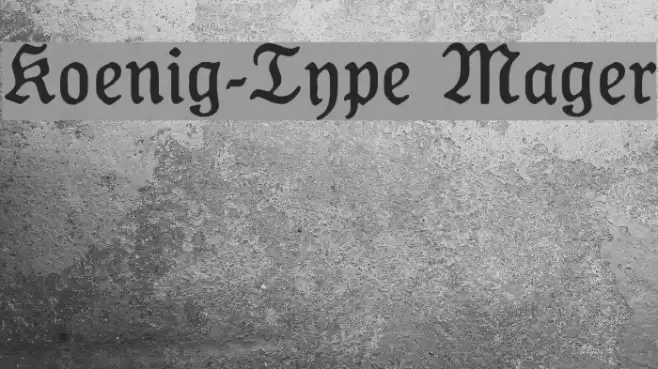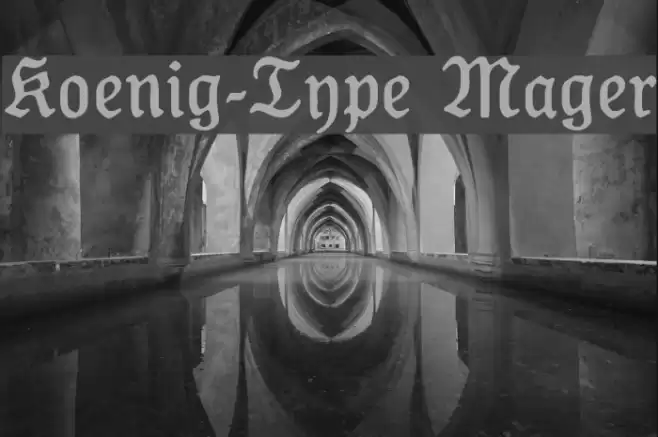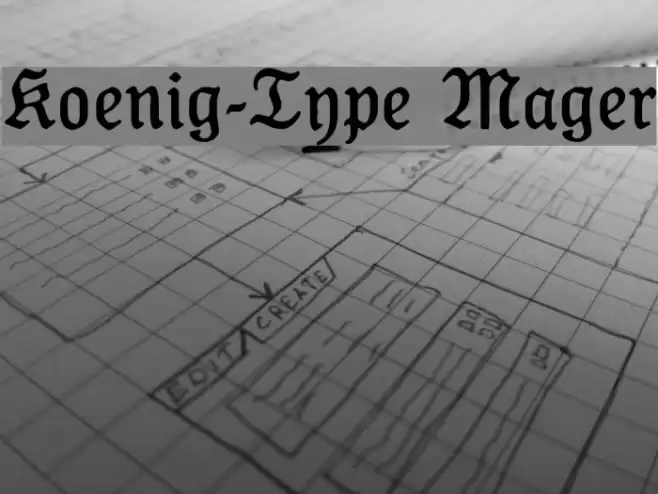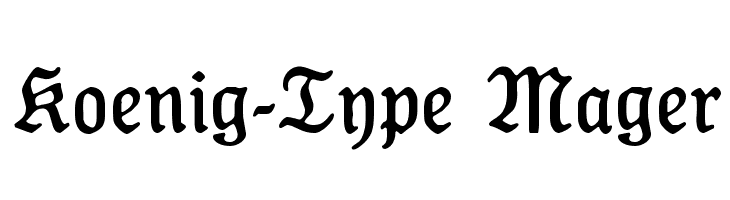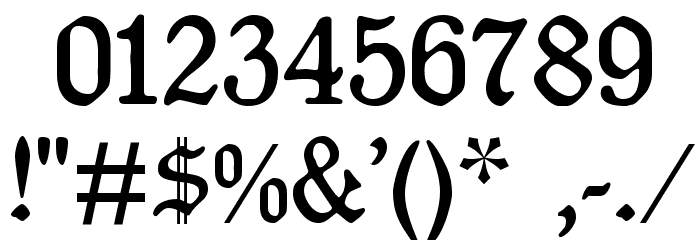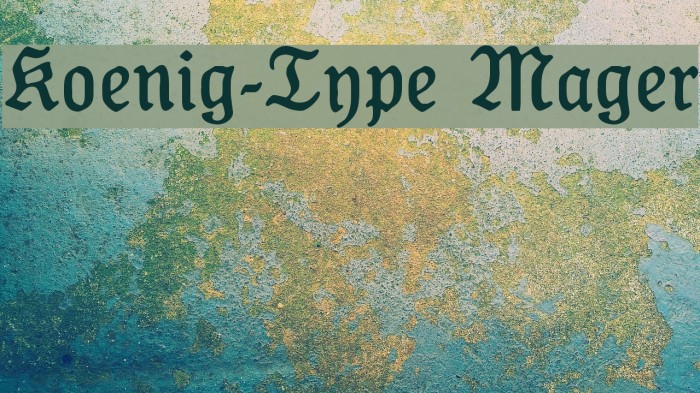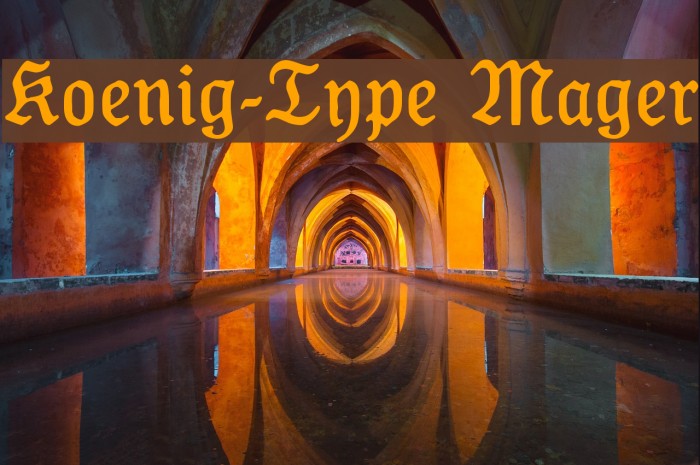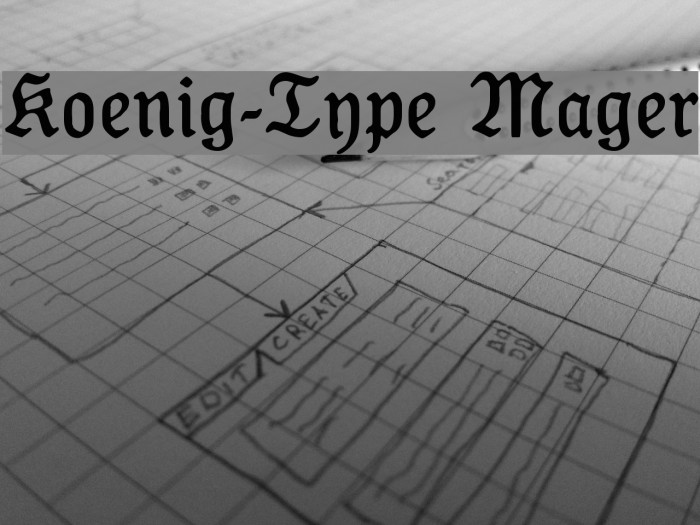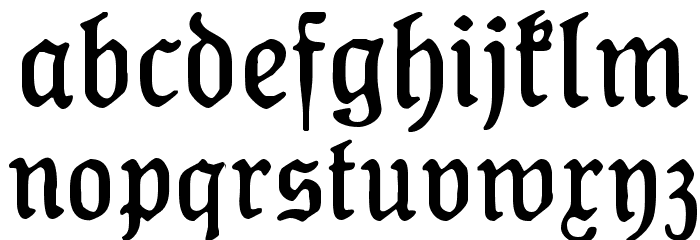
Koenig-Type Mager Font
Koenig-Type Mager Description
This font exhibits a classic blackletter style, characterized by its ornate and intricate letterforms. The uppercase letters feature sharp, angular lines with a distinct medieval flair, while the lowercase letters maintain a similar aesthetic with slightly more rounded edges. The numerals are bold and consistent with the overall style, providing a cohesive look. Special characters are designed with the same attention to detail, making them suitable for decorative purposes. The font's historical and traditional appearance makes it ideal for projects requiring a touch of elegance and formality.
A classic blackletter font with ornate, medieval-inspired letterforms from Uncategorized fonts.
- Proposed Projects: Ideal for wedding invitations, historical documents, certificates, and branding that requires a traditional or formal touch.
- Overall Style: Classic
- Use Case: Logos, Headlines, Decorative text